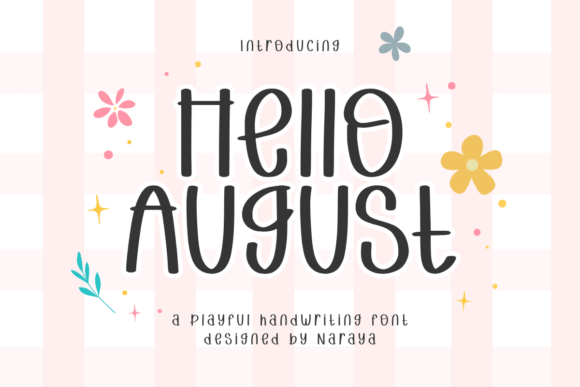
Discover the Creative Spark of Hello August
There are moments when a design feels incomplete, missing that spark of personality that makes it truly connect. The right typeface can be the bridge between a good idea and a memorable piece of art. Enter the Hello August display font, a typeface that carries a roguishly charming spirit, inviting you to let your creativity take flight with a sense of whimsy and bold expression.
A Typeface with Character and Versatility
At its core, Hello August is a display font designed to make a statement. Its character lies in a blend of playful curves and confident strokes, giving it a distinctive voice that feels both modern and approachable. This isn't a quiet, background font; it's built to be seen and to inject energy into a project. Its design makes it brilliantly suited for applications where personality is key, from punchy Cricut projects to innovative logo designs that need to stand out in a crowded market.
From Digital Files to Physical Creations
One of the practical strengths of this creative font is its compatibility with various design workflows. For crafters and designers who work with cutting machines, it's ideal for processing SVG files cleanly, ensuring smooth cuts for vinyl decals, paper crafts, and custom apparel typography. This makes it a valuable design asset for creating harmonious calendar layouts, engaging planners, and festive decorations. Imagine crafting your own captivating stickers or designing tote bags and t-shirts that feature evocative, timeless quotes rendered in this expressive typeface.
Building a Cohesive Brand Identity
Typography is a silent ambassador for a brand. Choosing a typeface like Hello August for elements of your brand identity—such as a logo, header graphics, or social media posts—can communicate a specific tone. Its whimsical yet readable style might suit a boutique, a creative studio, a lifestyle blog, or a brand targeting a youthful, energetic audience. When used consistently, it helps build recognition and conveys a sense of creativity and approachability, making your social media profiles and marketing materials instantly more engaging.
Pairing for Professional Polish
While a display font shines in headlines and featured text, pairing it with a more neutral serif or sans serif font for body copy is crucial for readability. This creates a clear visual hierarchy, allowing Hello August to capture attention while the supporting text delivers detailed information. For example, pairing it with a clean sans serif on a website or in editorial design ensures the layout feels both dynamic and professional.
Practical Considerations for Your Project
Before integrating any new typeface, consider its practical application. Hello August excels at larger scales where its details can be appreciated, making it perfect for poster design, packaging headers, and bold web design elements. Always test the font at the size you intend to use to ensure optimal readability. Furthermore, it's important to review the licensing terms associated with any commercial font download. Confirming that the license covers your intended use—whether for client work, merchandise, or digital products—is a fundamental step in professional practice.
Ultimately, the fonts you choose are foundational design assets that shape how your work is perceived. A typeface like Hello August offers a specific creative tool: one that brings warmth, character, and a touch of whimsy. By understanding its strengths and applying it thoughtfully, you can elevate your projects, making them not just visually appealing, but genuinely resonant. Let your artistry dazzle by selecting tools that align with your creative vision.